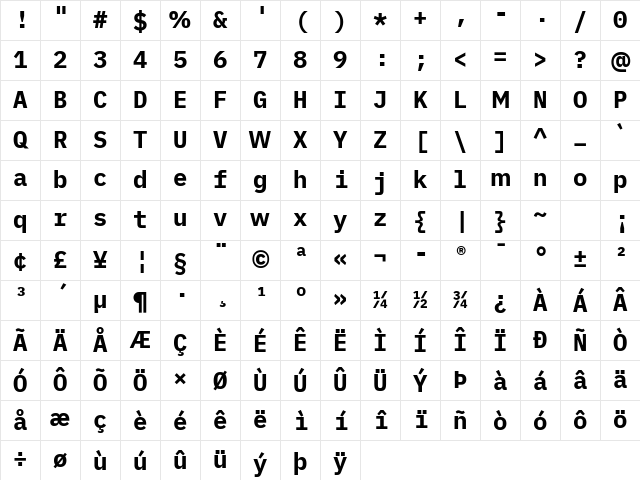
Complete iMWritingDuoS NF Bold glyph index. Displaying only characters natively supported by iMWritingDuoS NF Bold font.
iMWritingDuoS NF is a composed and adaptable typeface that performs quietly and consistently across a wide range of design contexts. Its bold stroke weight gives it real presence on the page.